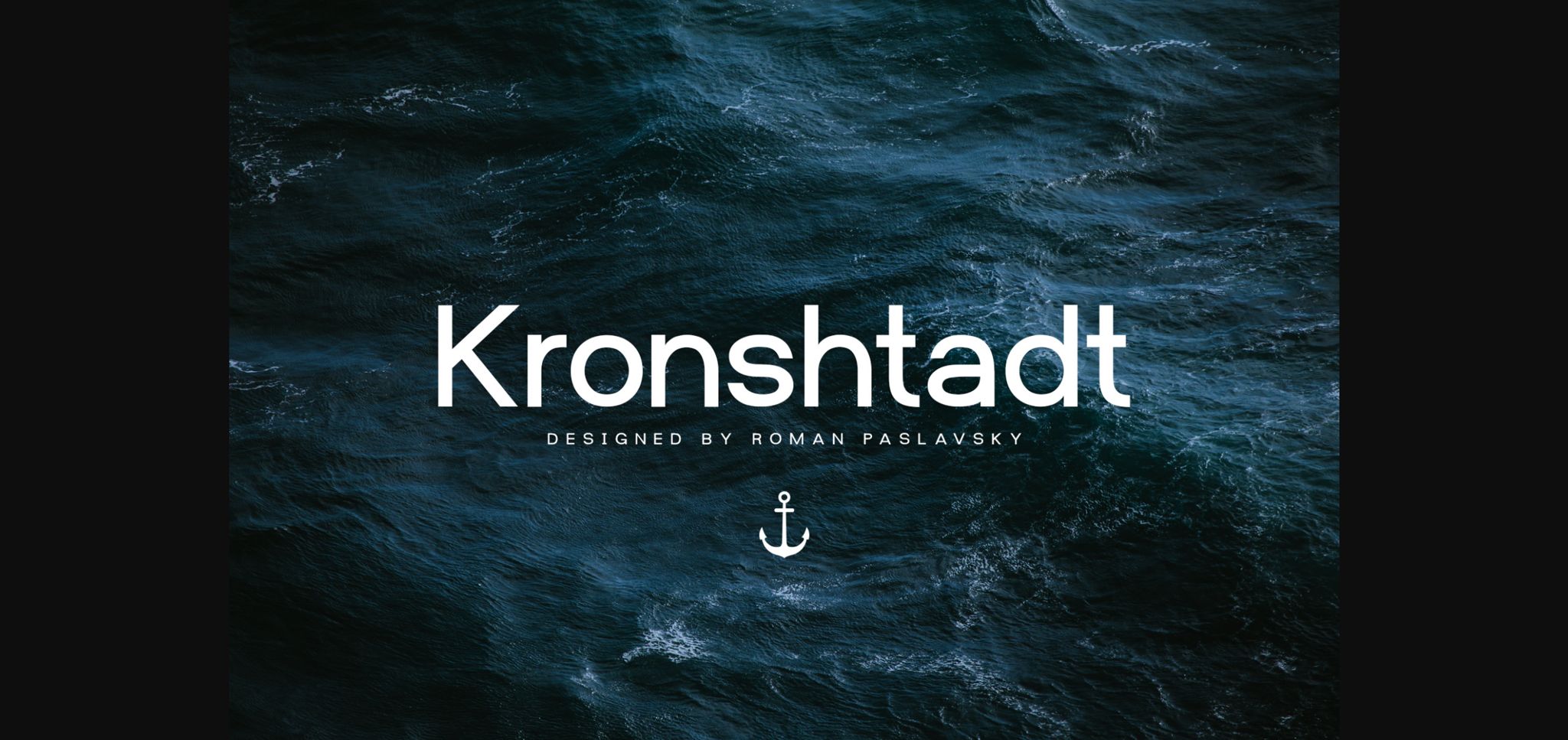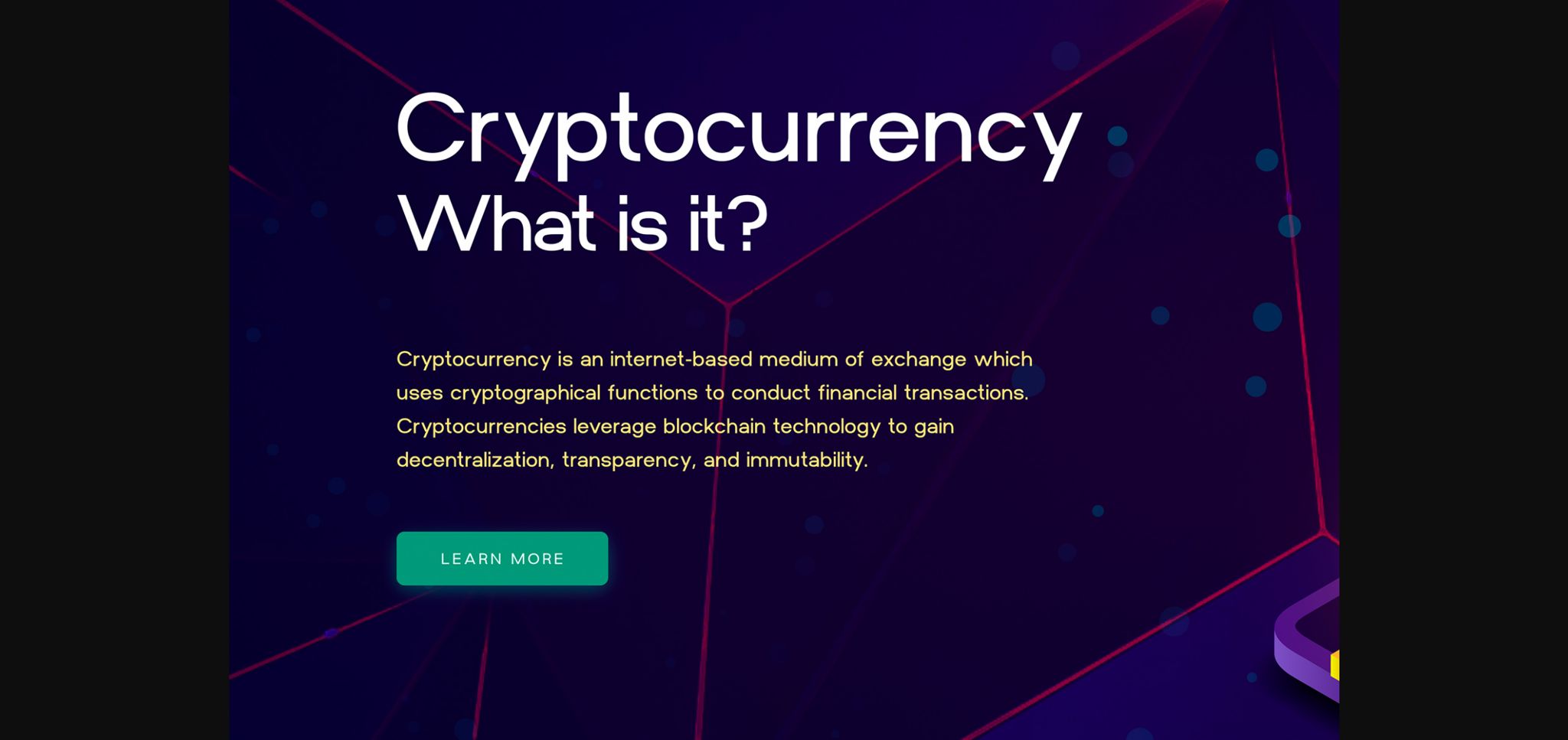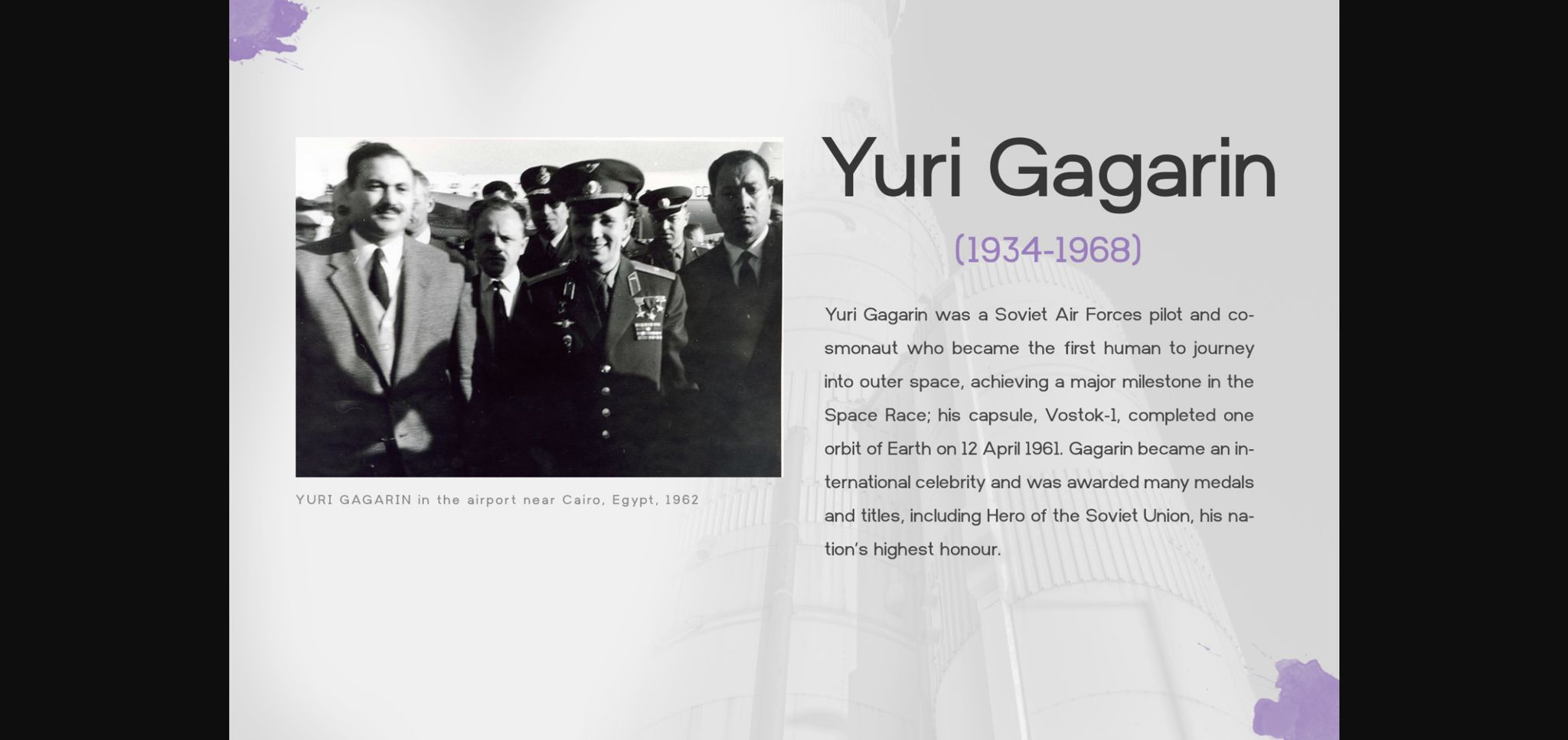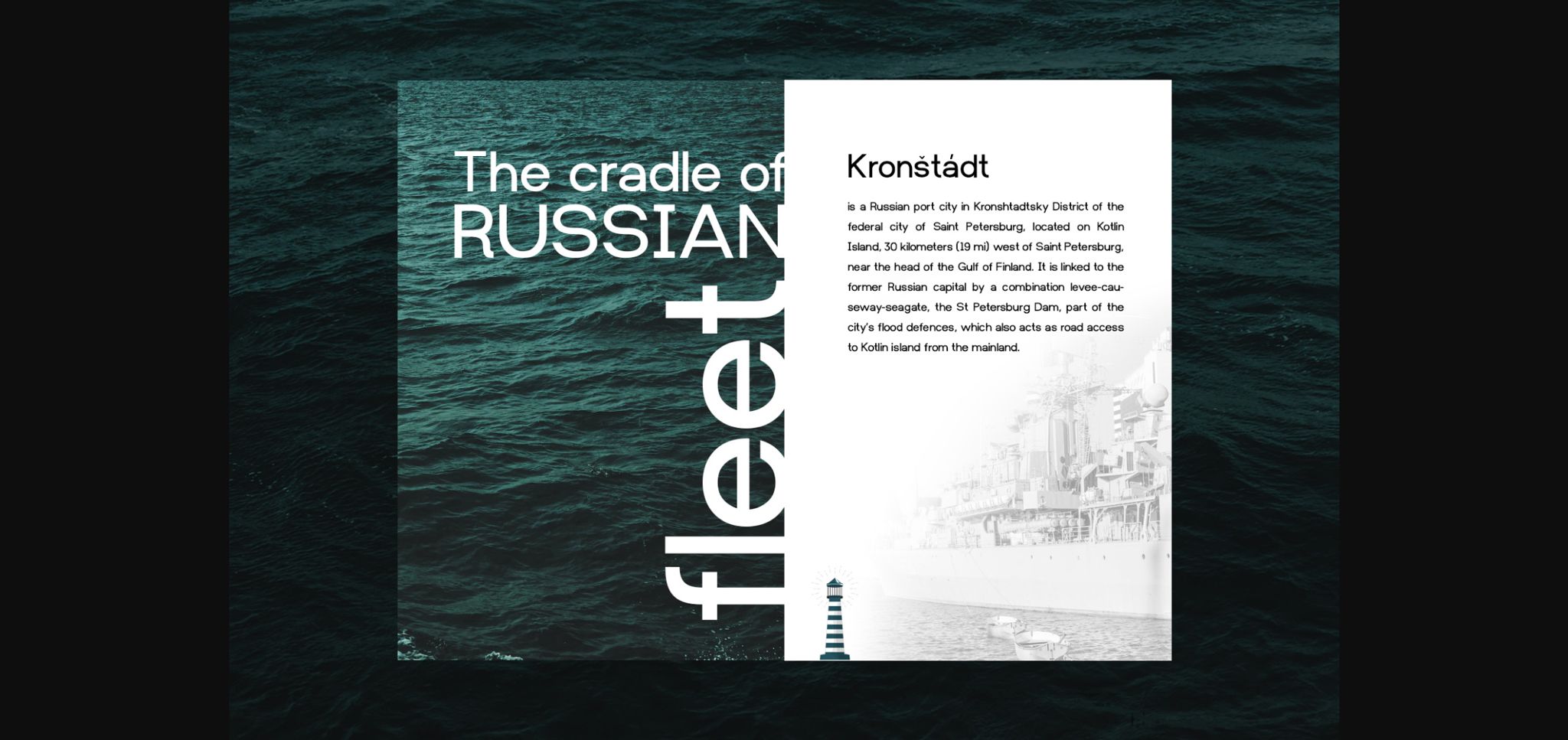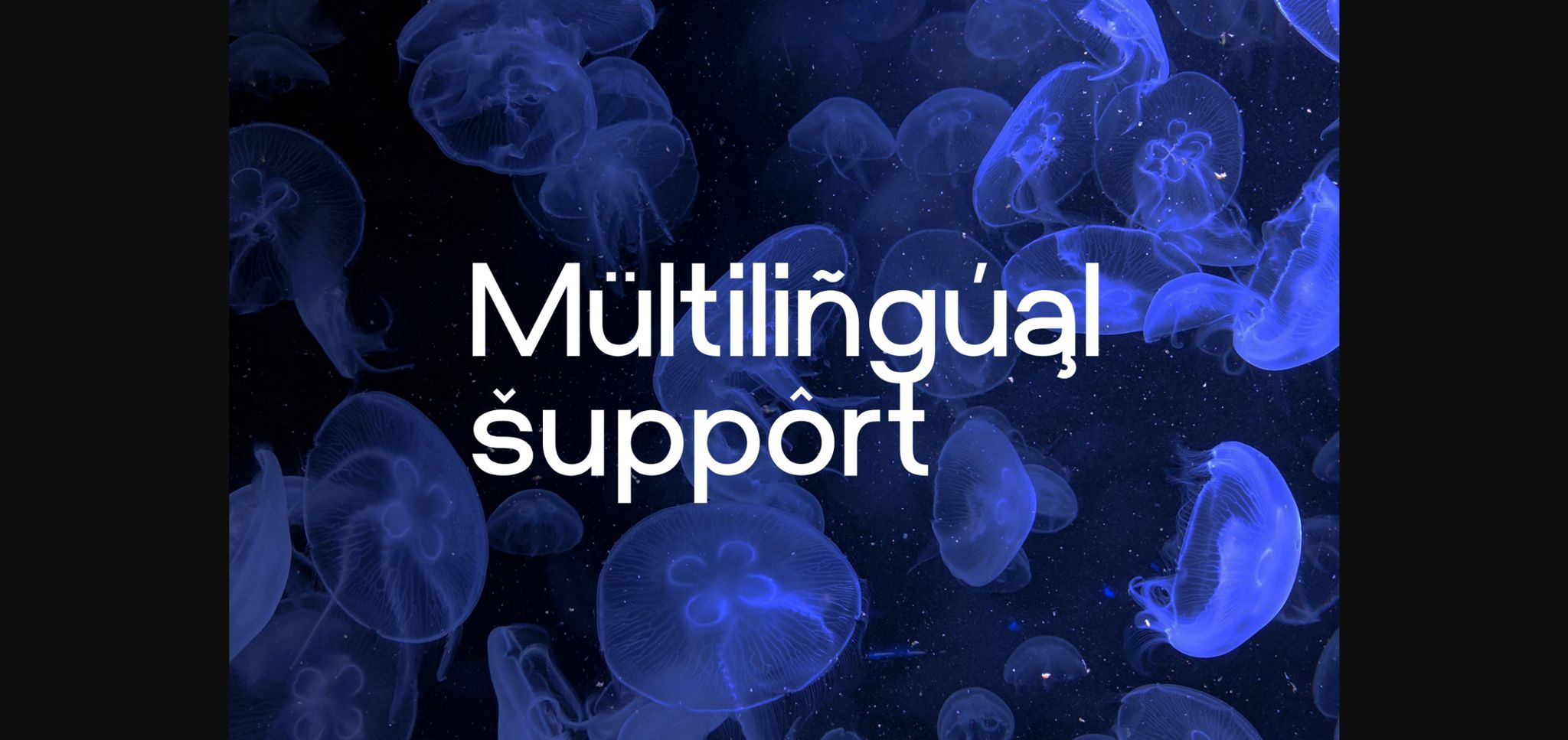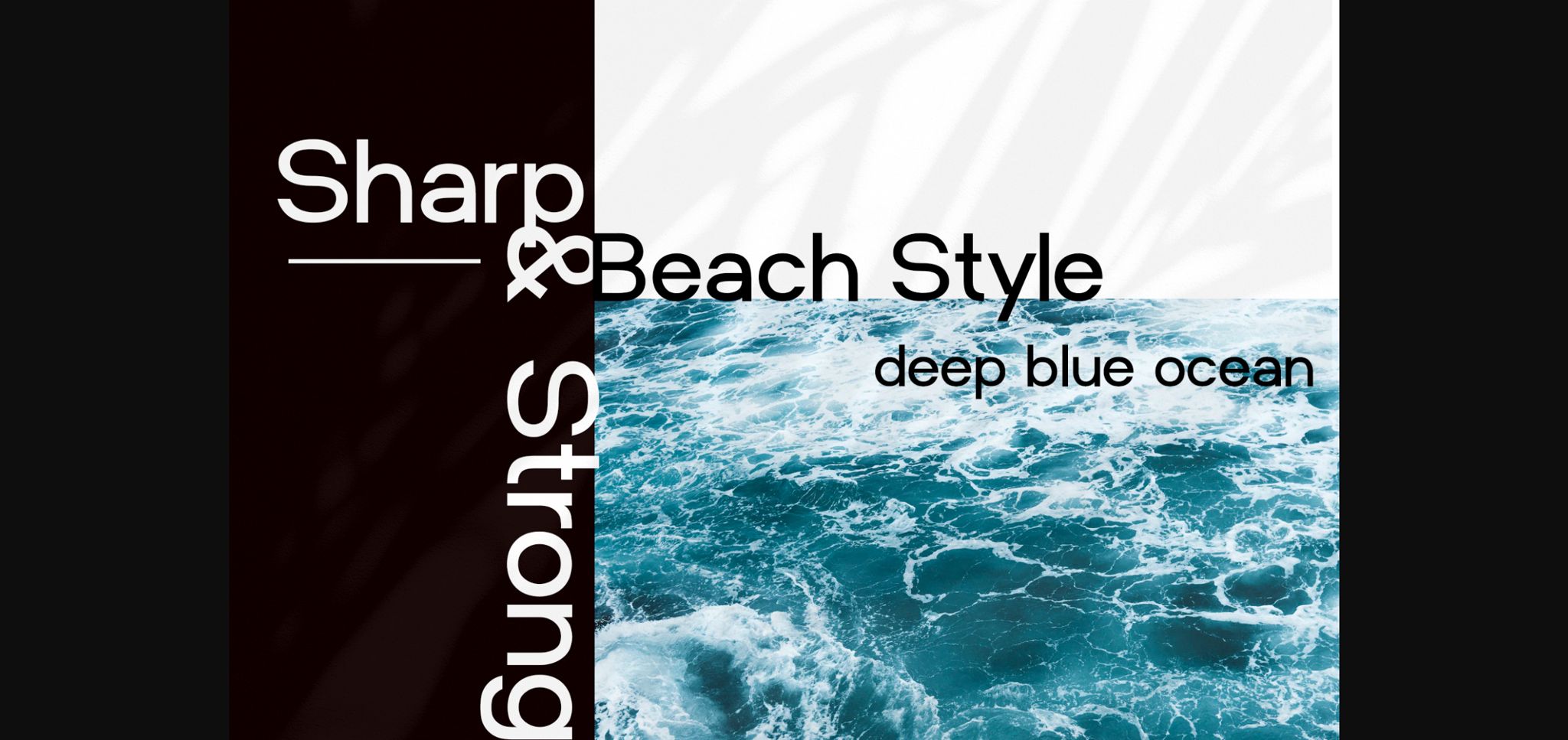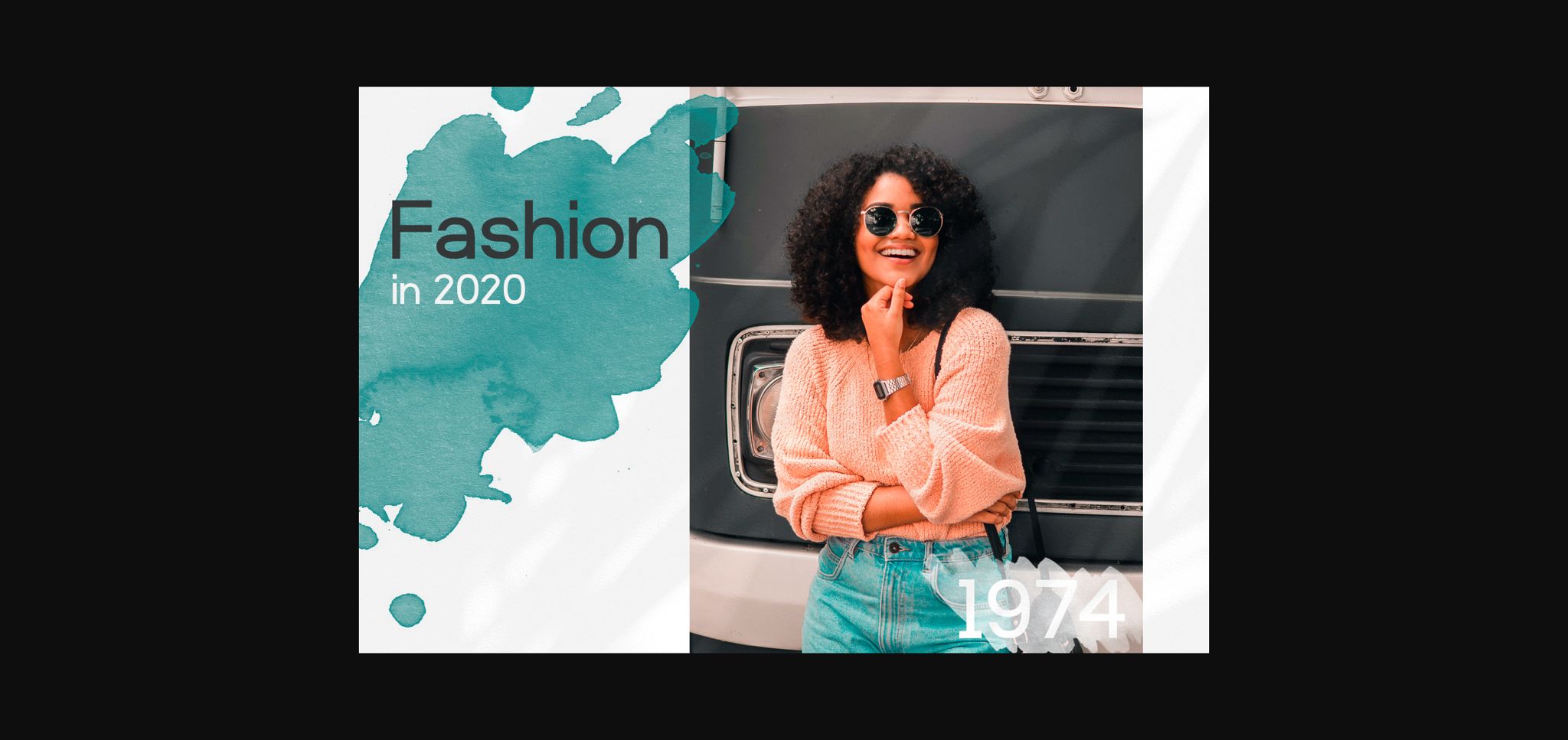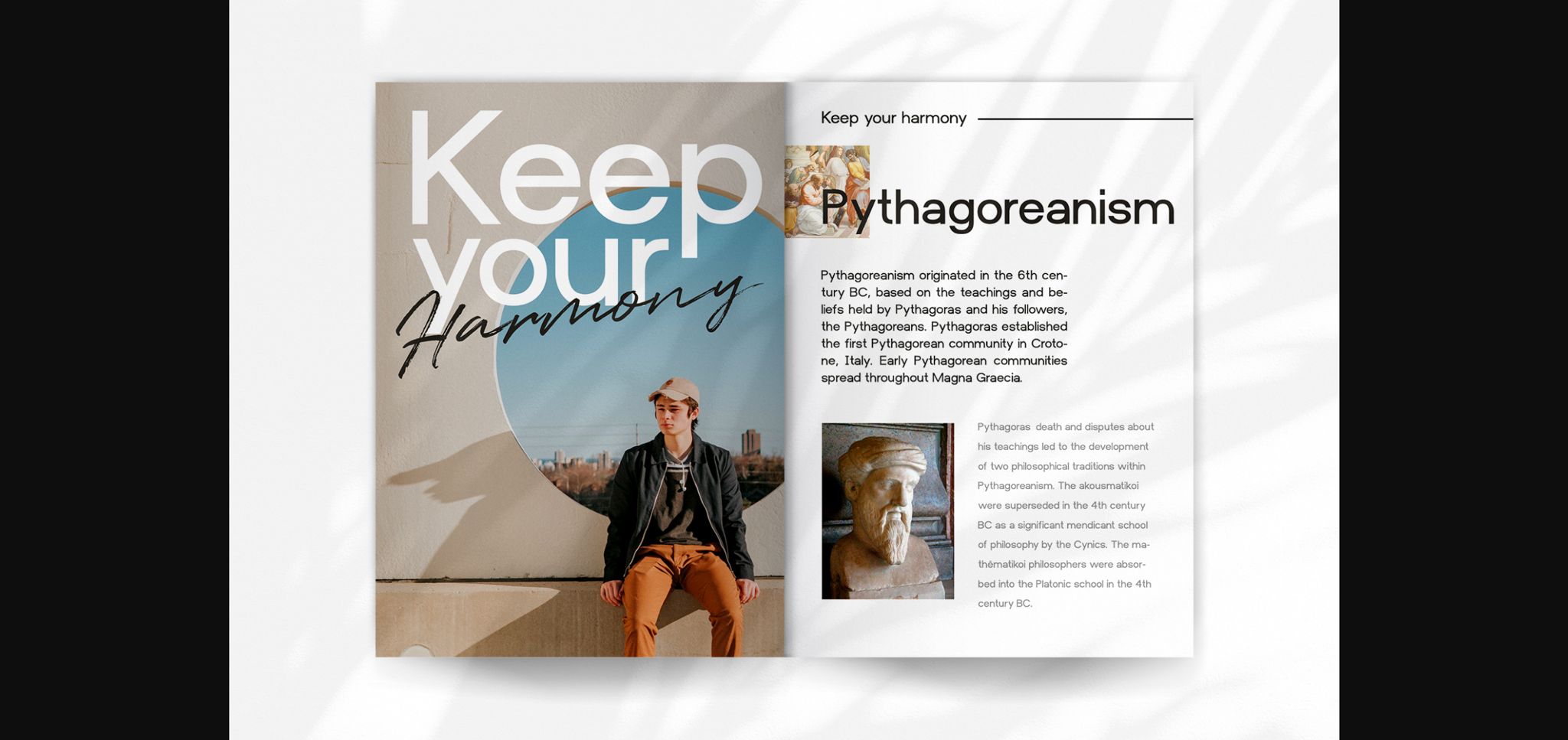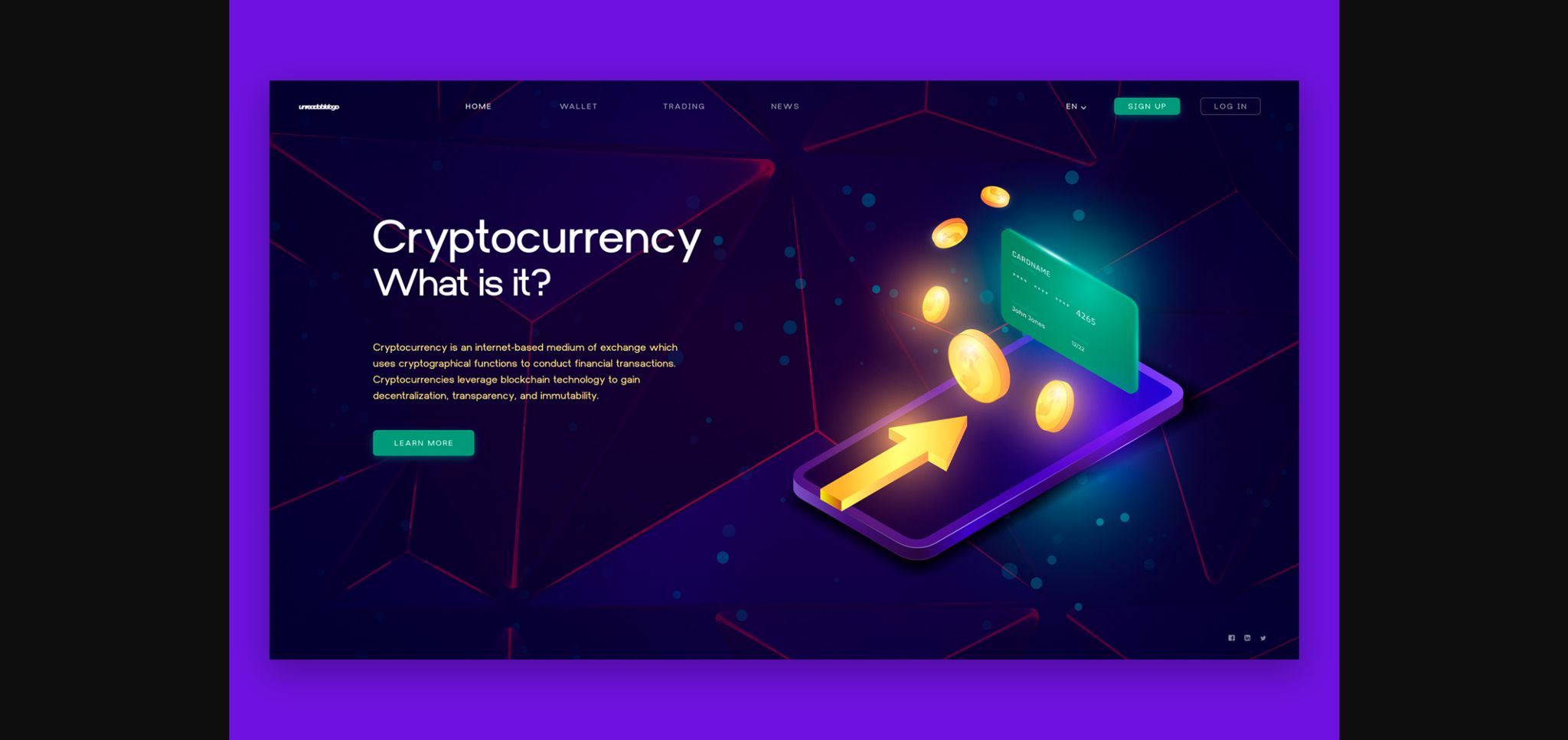
Kronshtadt Font
About Kronshtadt Font
Kronshtadt is a minimal and neat sans serif font. It can easily be matched to an incredibly large set of projects, so add it to your creative ideas and notice how it makes them stand out!